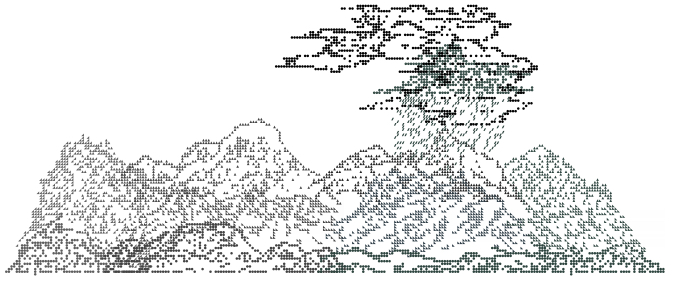
• Instructions: this font is designed for the creation of panoramic mountain ranges, plus some weather on a standard QWERTY keyboard. It is UPPERCASE only and makes use of the negative space left of the LEFT vertical guide to make overlays, which is why the preview looks funny.
1. Keep your shift key held down throughout.
2. High Peaks. Start by choosing an uppercase letter from the upper row (eg. "Q").
3. Low Peaks. Then choose an uppercase letter from the row below (eg. "A").
4. Foothills. Then choose an uppercase letter from the row below (eg. "Z").
5. Weather. Keeping the shift key held down, choose clouds and rain from the numbers row.
Notes:
> Remember to change each column of mountains + weather before moving on to the next.
> It looks like around 70 for text size is optimal.
> Use square brackets to start and finish your mountain range.
High Peaks: QWERTYUIOP{}|
Low Peaks: ASDFGHJKL:
Foothills: ZXCVBNM<>?
Weather: !@£$%^&*()_
Quite the clever and interesting concept
omg, it is so beautiful!
@Graeme Walker (graemejwalker) - Fascinating project and wonderful execution.  Yet another example of FontStruct's versatility, and not being solely limited to typography...  ;^)
Great idea.
I love this.  it belongs on the "hidden gems" list